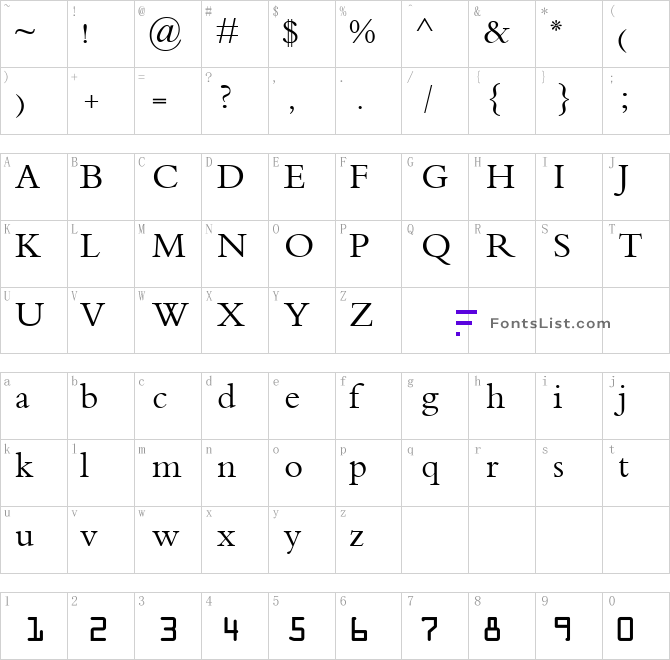
- Font Name:Asir Kufi
Asir-Kufi.ttf is a very beautiful artistic font, Asir-Kufi.ttf is widely used in the design and printing of various books and pictures,Asir-Kufi.ttf has a strong visual impact,Asir-Kufi.ttf is a commonly used font in newspapers, magazines and books, and is used in posters, e-commerce Poster design, store design, logo design, font design and other fields.Asir-Kufi.